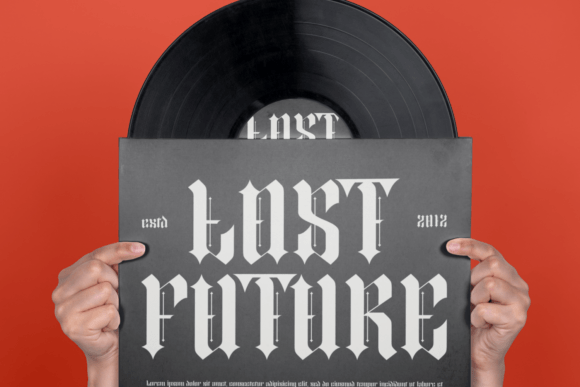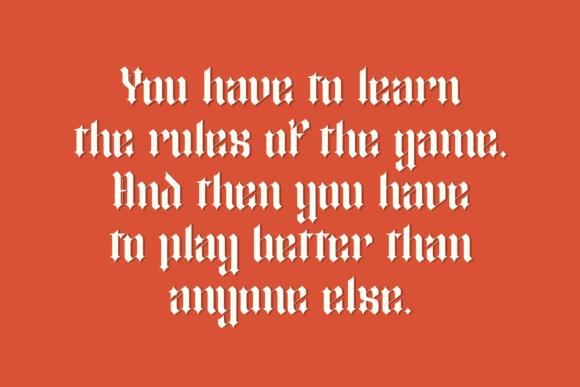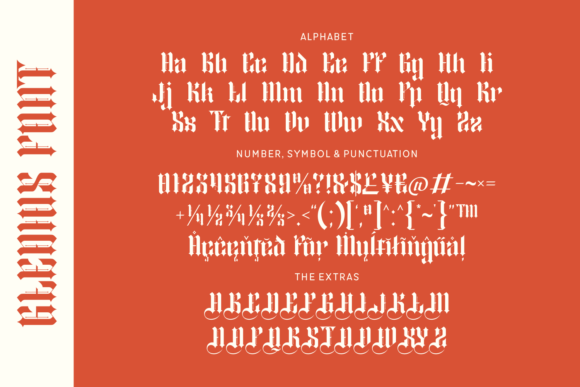
The Gledius Font: A Modern Take on Traditional Blackletter
I still remember the design project that led me to discover the Gledius font. I was working on a branding project for a fashion label, and I needed a font that would merge history with a sleek, modern edge. After hours of searching, I stumbled upon Gledius, a blackletter font with a modern style that instantly caught my attention. In this article, I’ll share my experience with Gledius, its features, and how to make the most of it in your designs.
An Honest Review of Gledius
Here’s what I love about Gledius:
- ✨ Unique and eye-catching design: Gledius brings a fresh take on traditional blackletter fonts, making it perfect for designs that need a bold statement.
- ✅ Highly versatile: It works well in various design contexts, from contemporary branding and fashion labels to product packaging.
- ✅ Intricate details: The font’s intricate details and boldness make it perfect for headlines, titles, and short texts.
However, I did notice some minor quirks:
- 🤔 Limited legibility at small sizes: Like many blackletter fonts, Gledius can be challenging to read at small sizes, so it’s best used for headlines or titles.
- ⚠️ Not suitable for body text: Due to its intricate details and boldness, Gledius is not ideal for long-form text or body paragraphs.
The Backstory of Gledius
Gledius was designed with the intention of merging traditional blackletter styles with modern design elements. The font’s creator aimed to craft a unique and versatile typeface that would appeal to designers seeking a bold, eye-catching font for their projects. With its intricate details and boldness, Gledius is perfect for designs that require a touch of history with a modern twist.
| What is Gledius font best used for? | Gledius is ideal for designs that require a bold, eye-catching font, such as contemporary branding, fashion labels, product packaging, and titles or headlines. |
| Can I use Gledius for body text? | No, Gledius is not suitable for body text due to its intricate details and boldness, which can make it difficult to read in long-form text. |